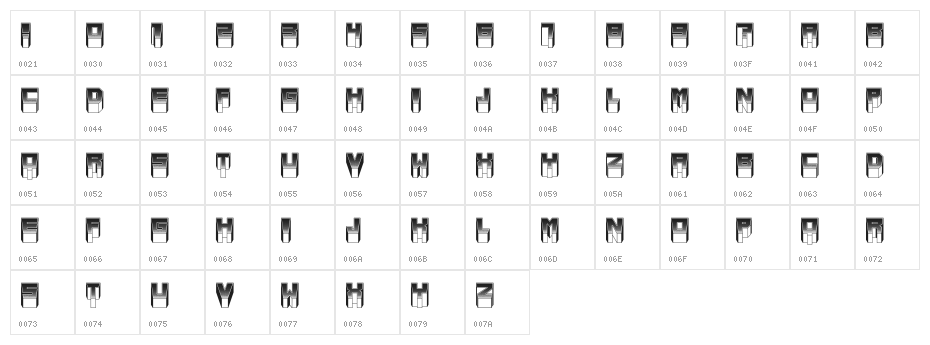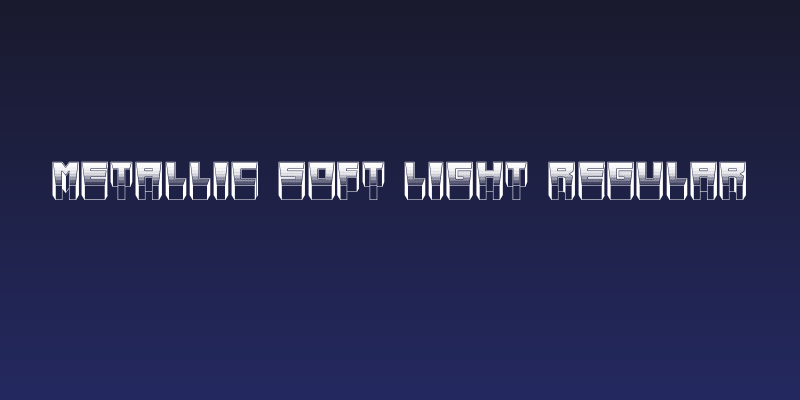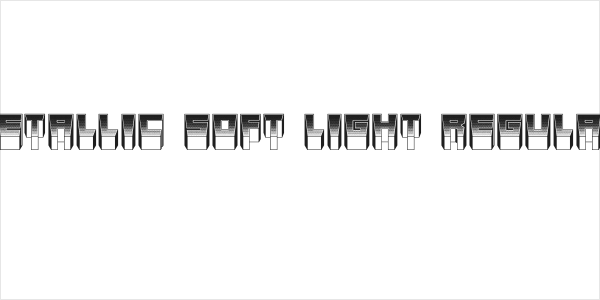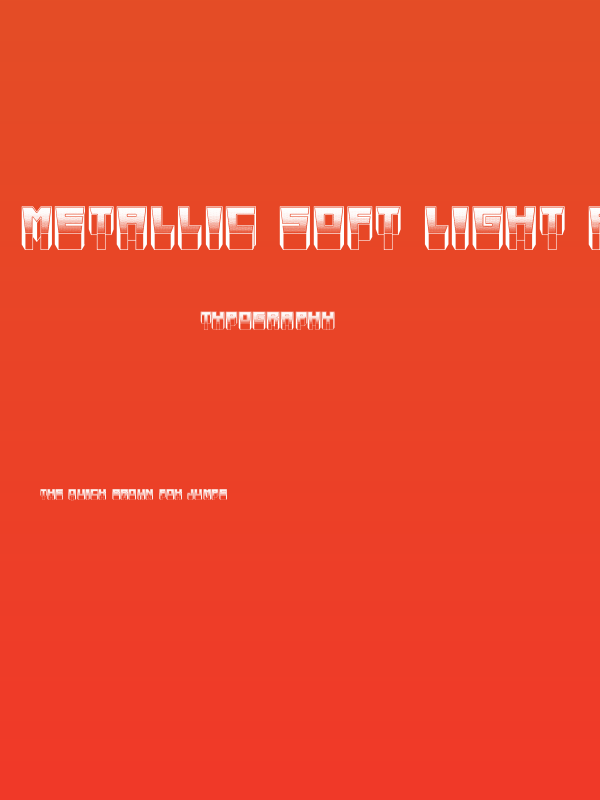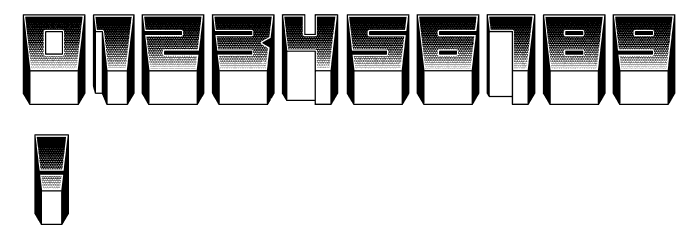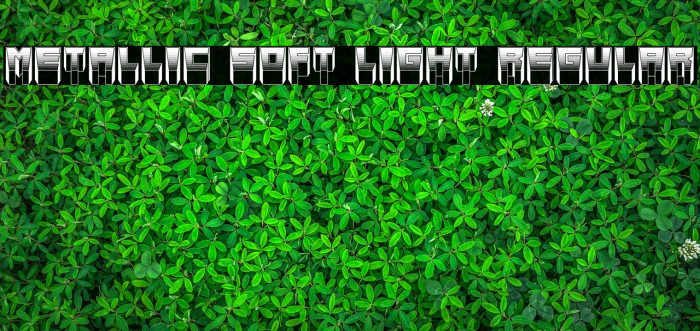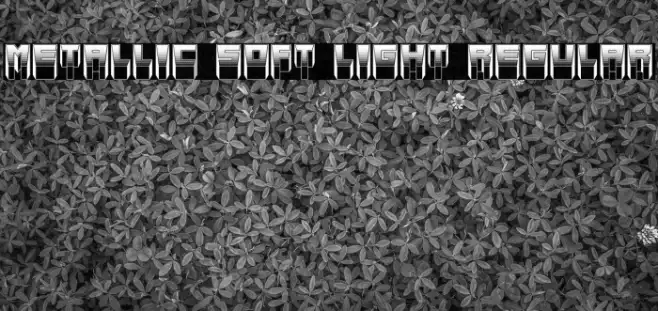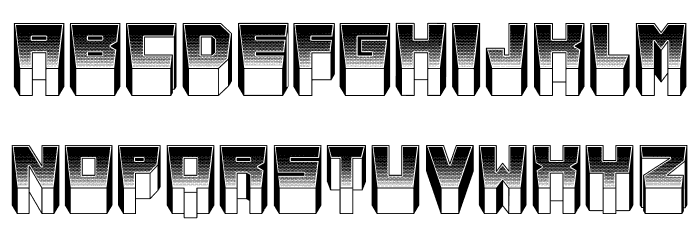
Metallic Soft Light Regular Font
Metallic Soft Light Regular Description
This font features a bold, three-dimensional design with a metallic appearance. The characters are blocky and robust, with a soft gradient that adds depth and a sense of light reflection. The edges are sharp, and the overall look is industrial and futuristic. The uppercase and lowercase letters maintain a consistent style, while the numbers and special characters complement the set with the same bold, metallic finish. This font is ideal for projects that require a strong visual impact and a modern, tech-inspired aesthetic.
| Overall Style | Futuristic, Industrial |
| Proposed Projects | Ideal for video game titles, tech company logos, futuristic posters, and industrial-themed branding. |